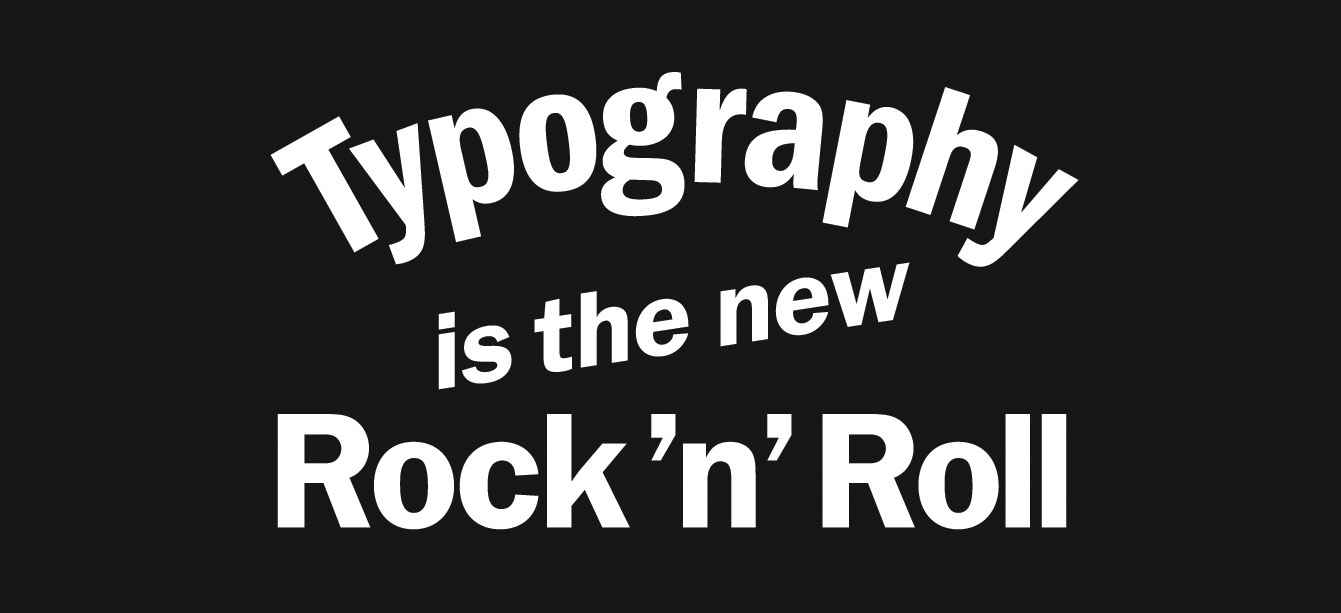
‘Typeface at the Rock Face’ Artrocker 134
‘Typeface at the Rock Face’
In our everyday lives we are surrounded by fonts and use them to navigate through our environment, understanding instinctively that they communicate a great deal of the information before we’ve even read the words. We choose typefaces to express our personal style or to demonstrate our allegiance to a philosophy, music style or band.
This is possible because there is such a diversity of font designs which have absorbed a multitude of references and intended messages during their centuries of development. Type we use today is influenced by everything from stone carving, handwritten manuscripts, the evolution of the printing industry and now the plethora of designs available online. When we look at type we don’t just see the words, we also see the letter shapes which—much like fashion or cars—are loaded with associations.
Typefaces absorb layers of references and designers continue to use them in a way that reinforce these to help them communicate their message. We all interpret these meanings readily, often on an instinctive level, and we’ve been learning to do this all our lives.
Type Idol
Band logos or album covers become iconic and result in a herd of spin off merchandising. We scribbled the logos on our school books, have the poster on our walls, wear the t-shirt, get the tattoo. They become so familiar that they become idols in their own right and can be reduced down to a simple typographic element and still be recogniseable.
How many do you recognise?
How Punk changed Graphic Design
How Punk changed Graphic Design
Sarah Hyndman on Punk, which first exploded in the 1970s and, at the time, looked like youthful rebellion.
In actuality it was part of the Postmodernist movement which began as a reaction to the rigid restrictions of Modernism. Its DIY ethos encapsulated the anti-establishment mood of the mid 1970s, a time of political and social turbulence. The former British Empire was dissolving and a new era in British music, fashion and design was beginning.
Taking the stage to articulate the feelings of a dissatisfied generation calling for change were the Sex Pistols, who played their first gig in 1975 at St Martins College of Art. Their outrageous behaviour and contempt for established conventions announced the beginning of Punk. The DIY ethos and uncontrolled, home made style was revolutionary at the time and launched a new era in British music, fashion and design.
Typography is the new Rock ‘n’ Roll
Type Tasting has been touring the streets of Dalston exploring the signs that illuminate our social rituals, rummaging around in record shops* looking at type on album covers, and next year we’re off to take part in SXSW in Austin, Texas. Typography is the new Rock ‘n’ Roll. We’ll tell you more soon…